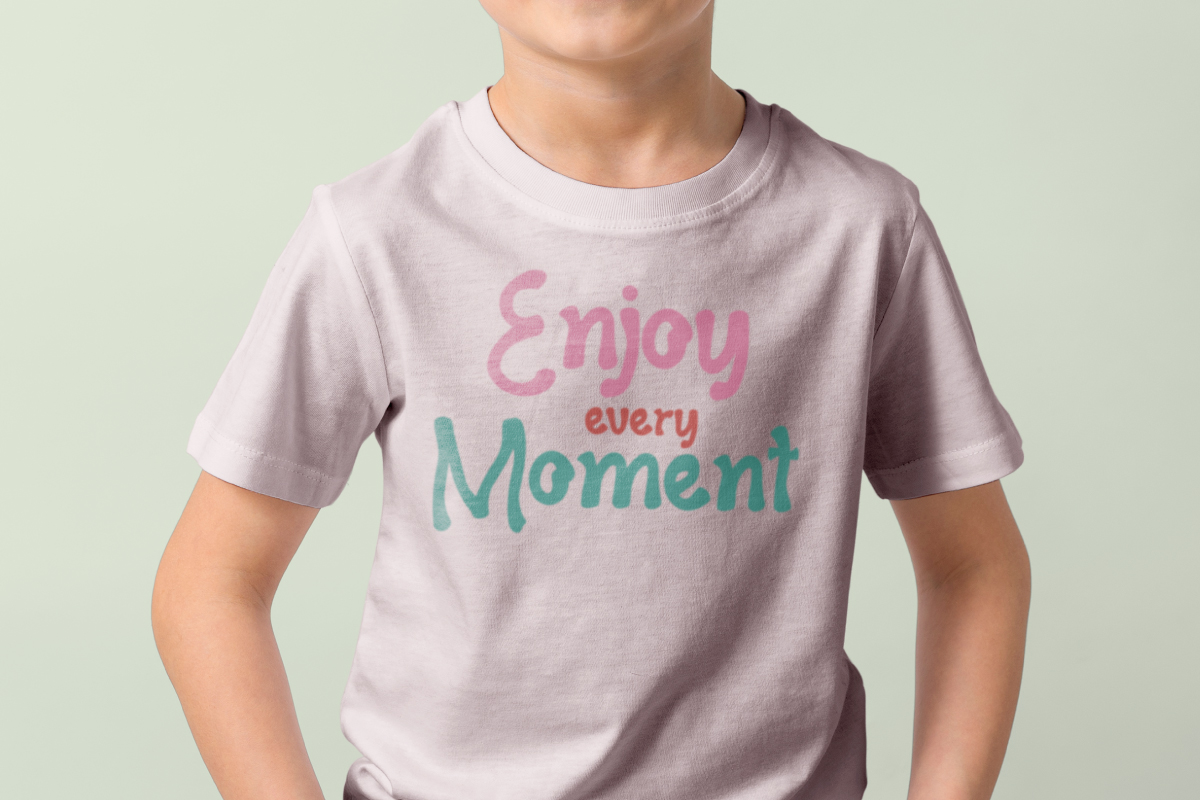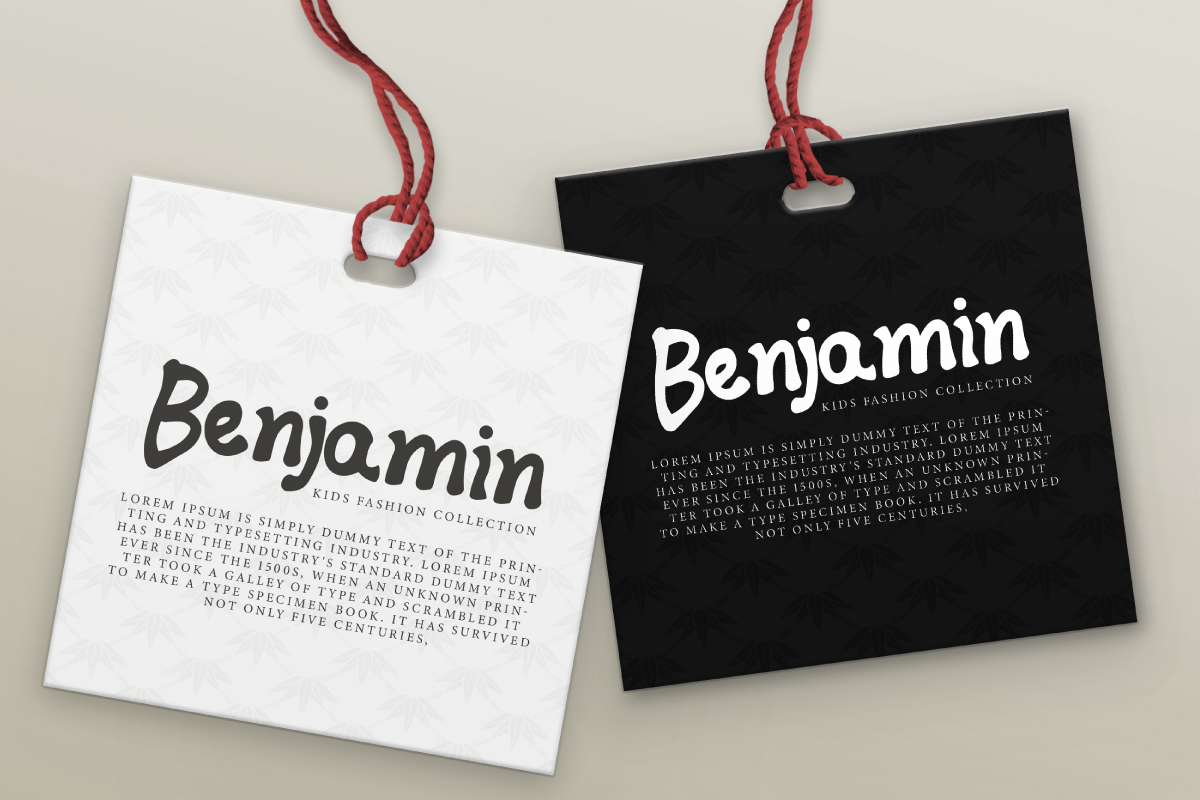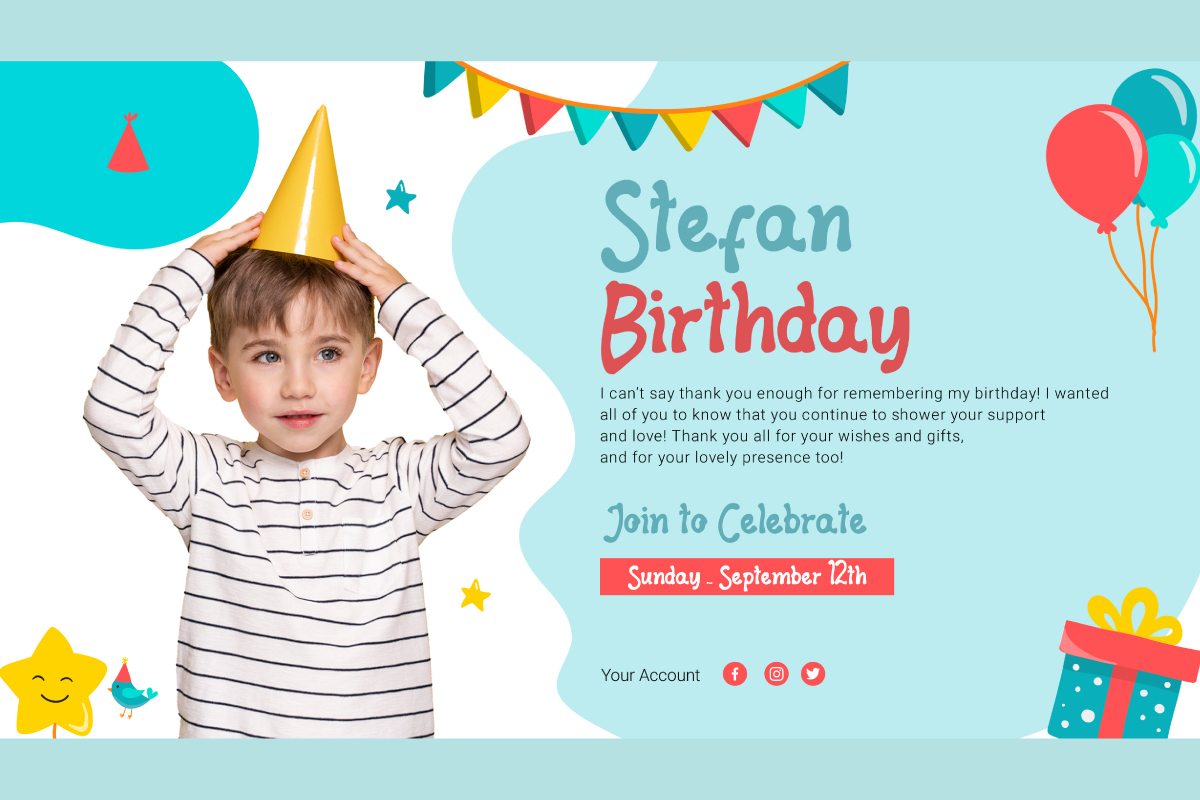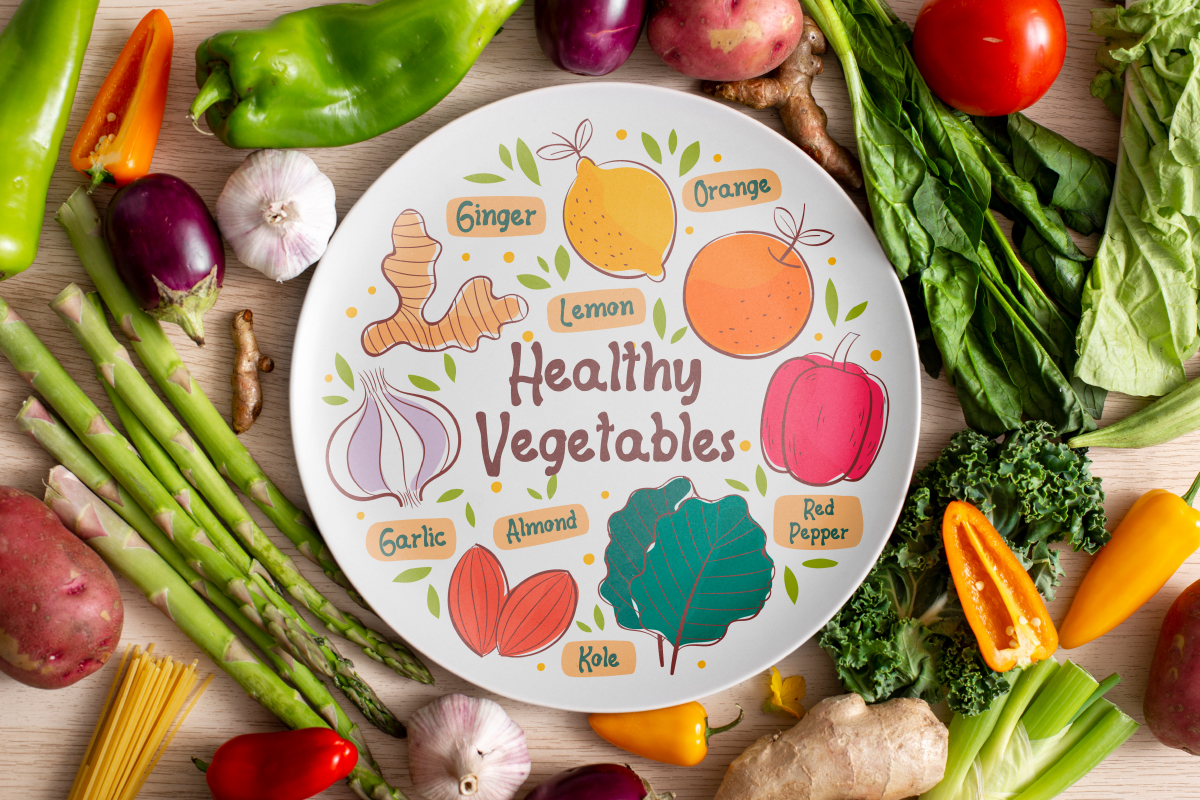
Dead Bamboo Font
Dead Bamboo Display Font is a wavy playful display font. This font is inspired by the unique shape of the bamboo sticks and exudes a fresh natural feel. Use this font to see the uniqueness of your various designs, such as brochure, cover, custom design, invitation, label, poster, product packaging, quotes, screen printing, signage, stationery, sticker, website, etc.